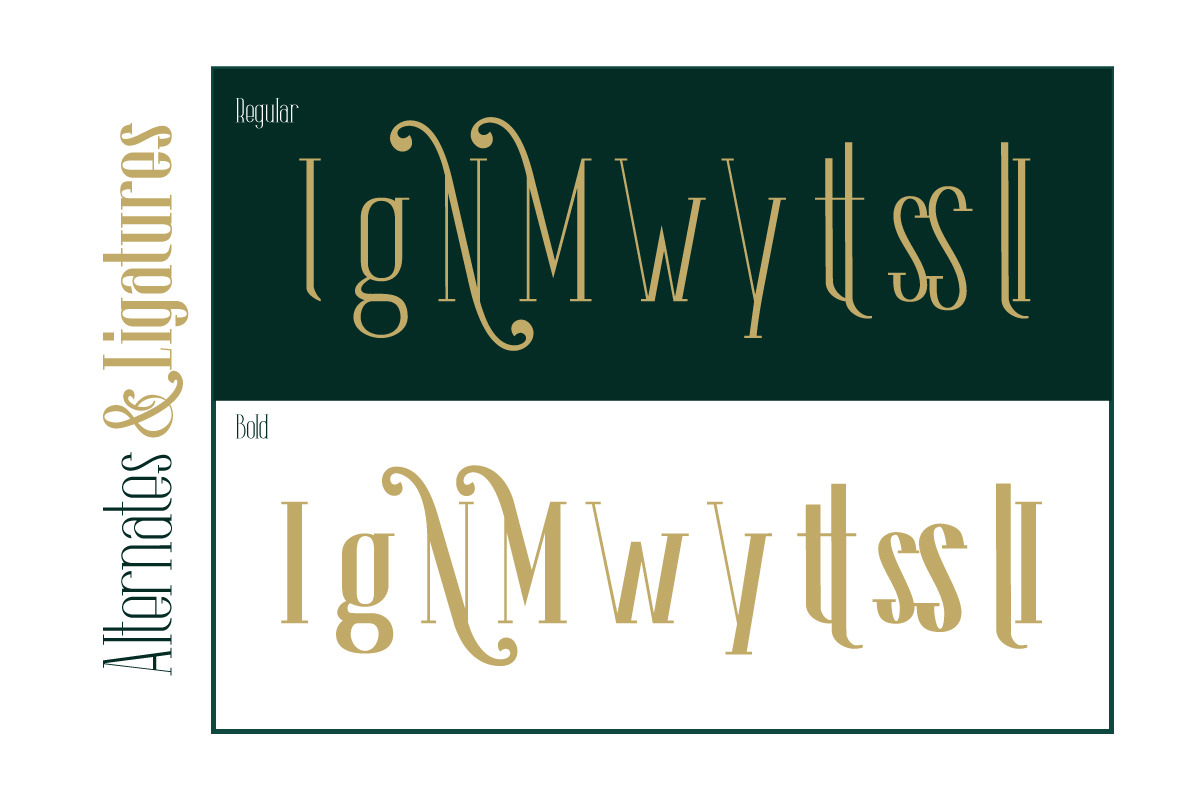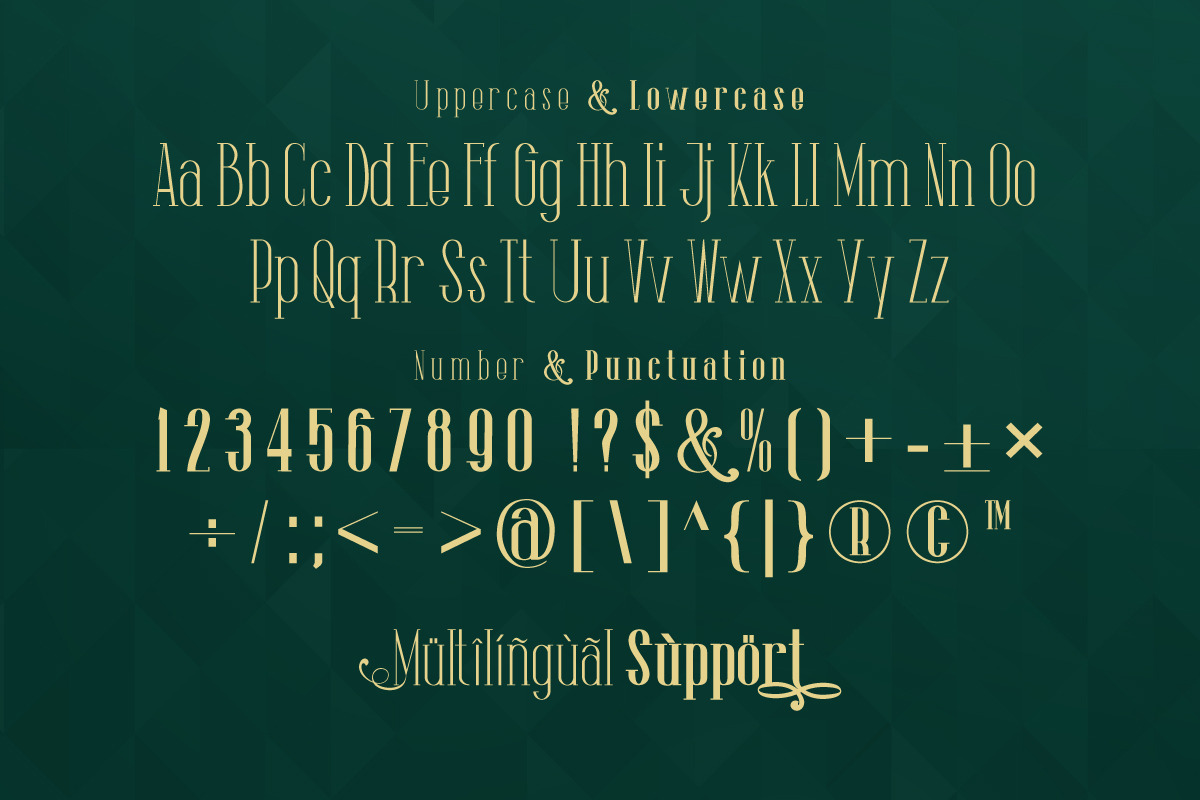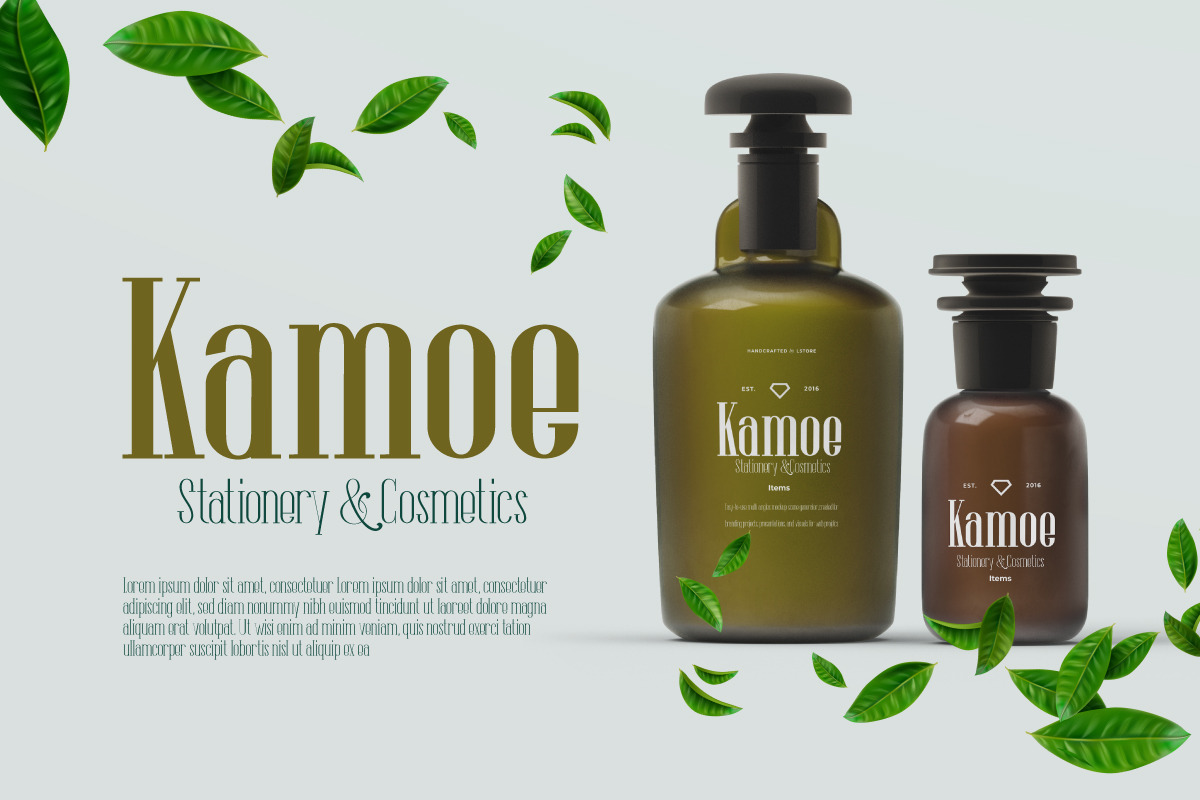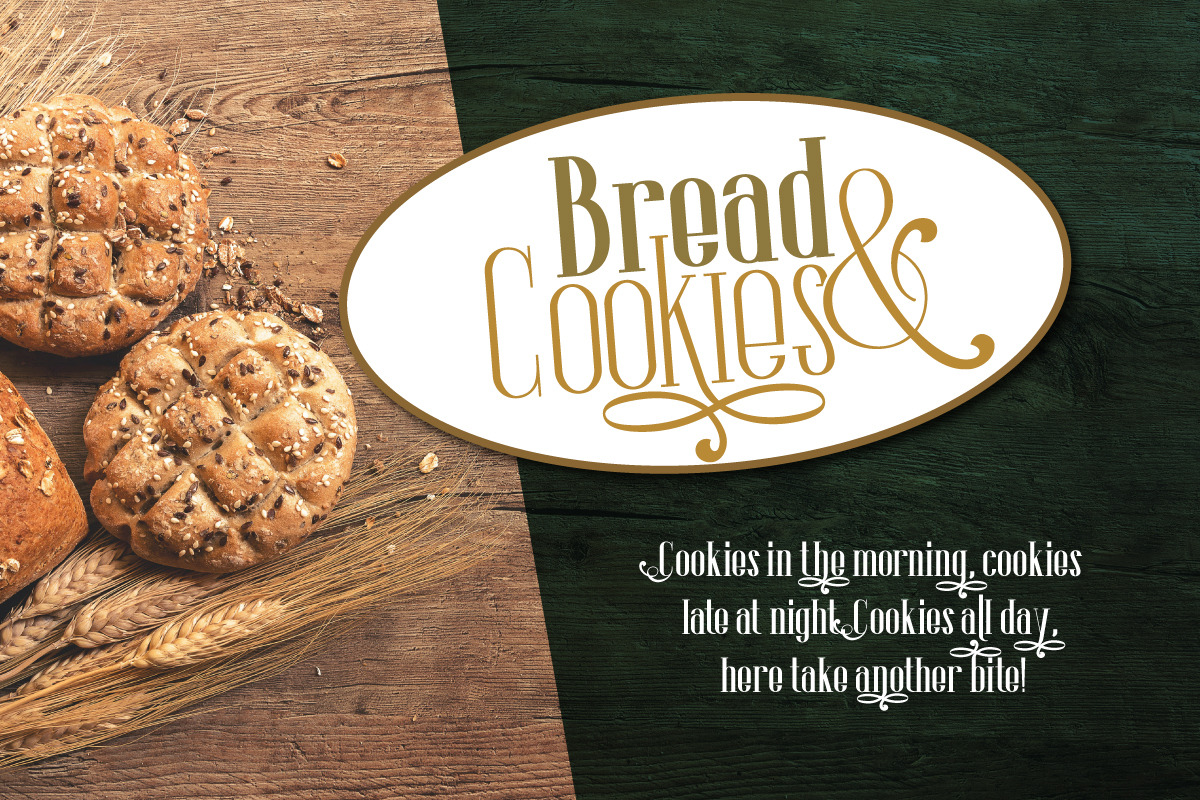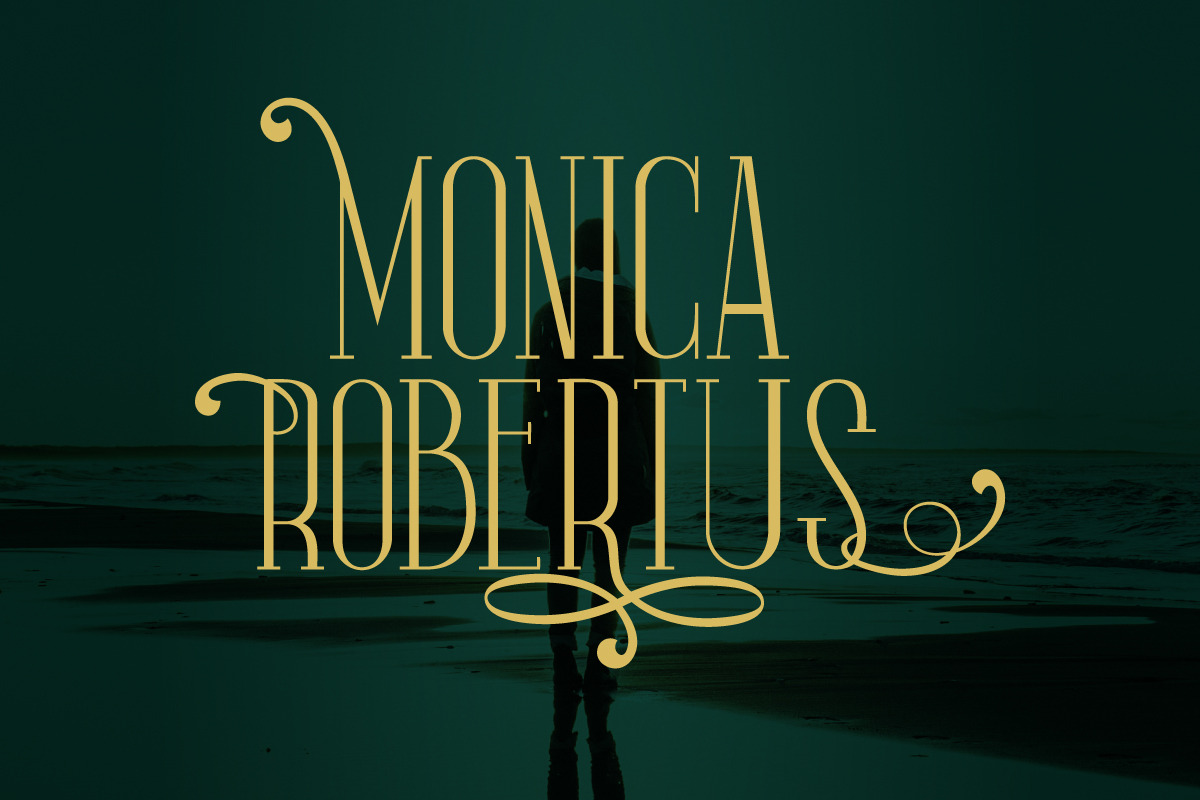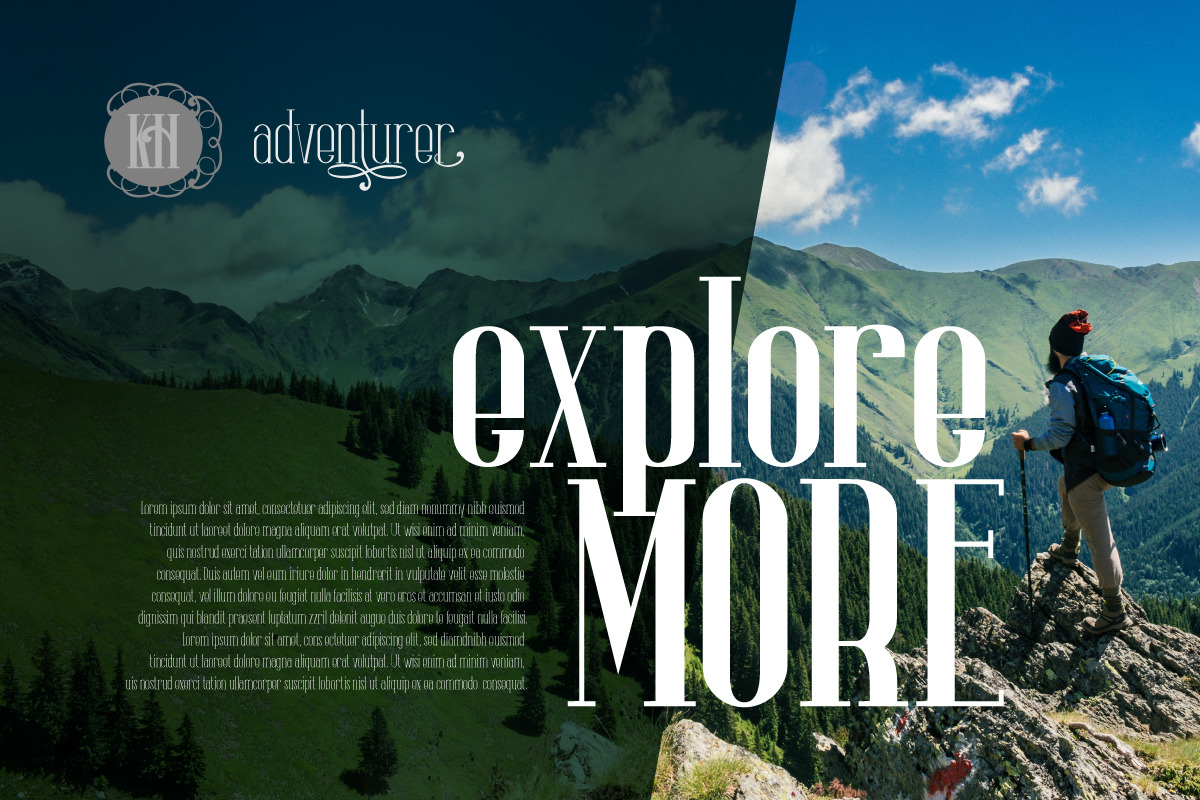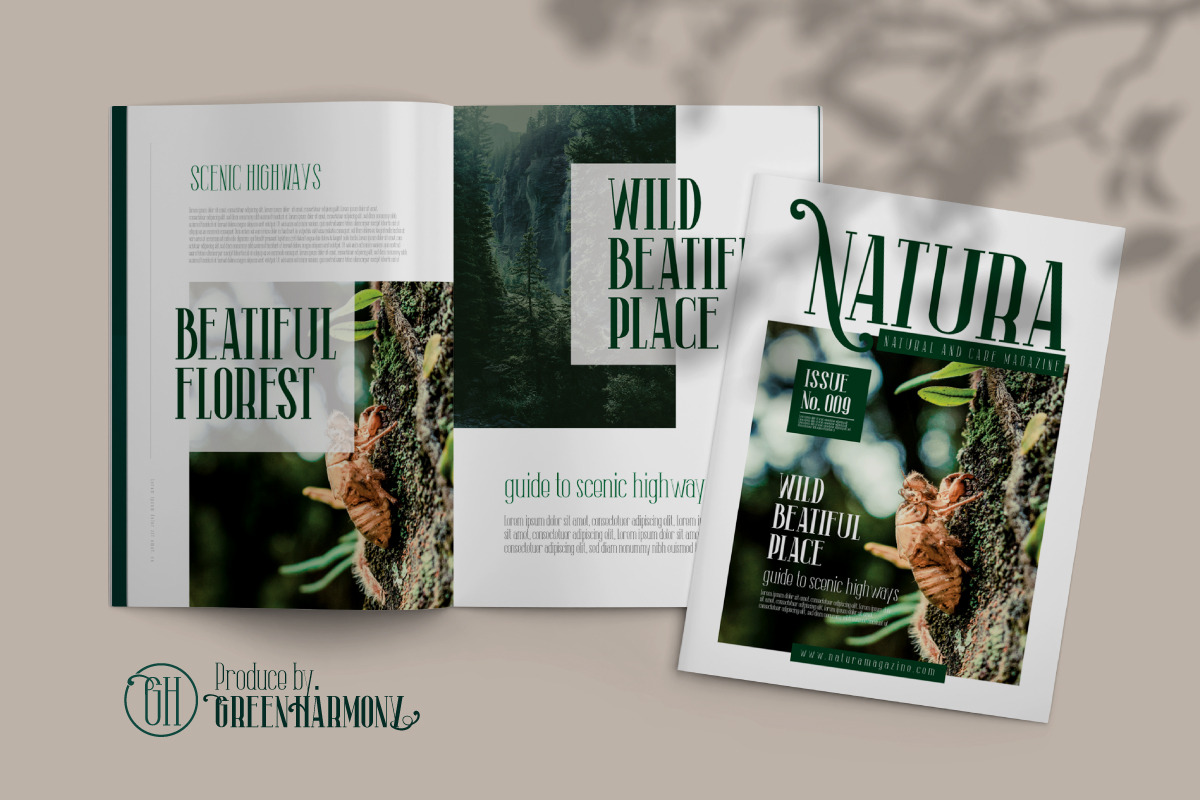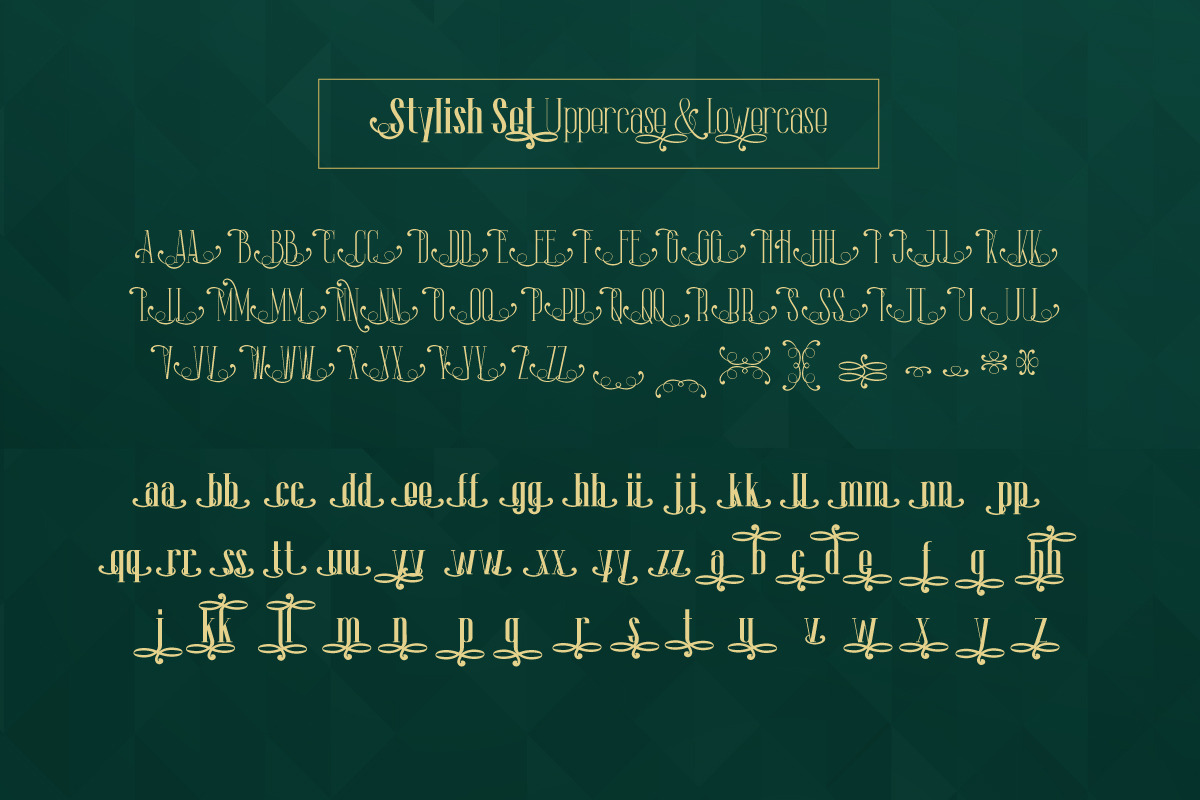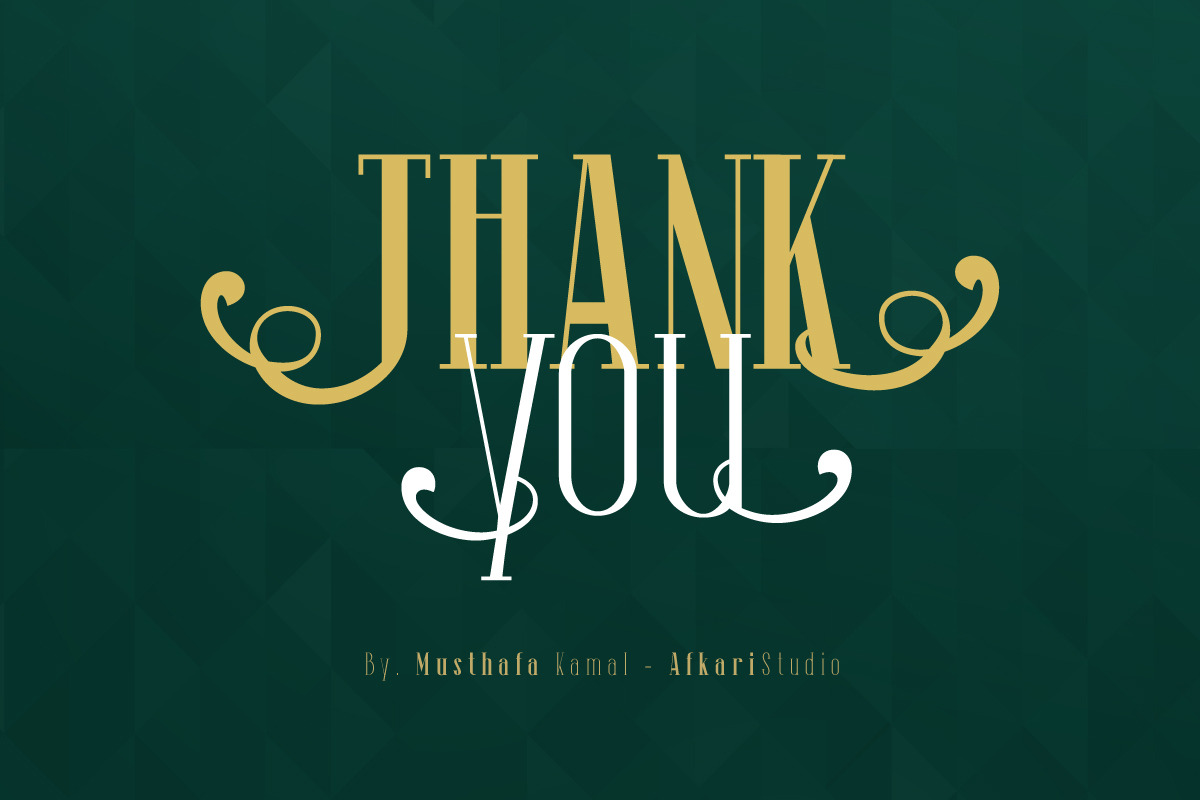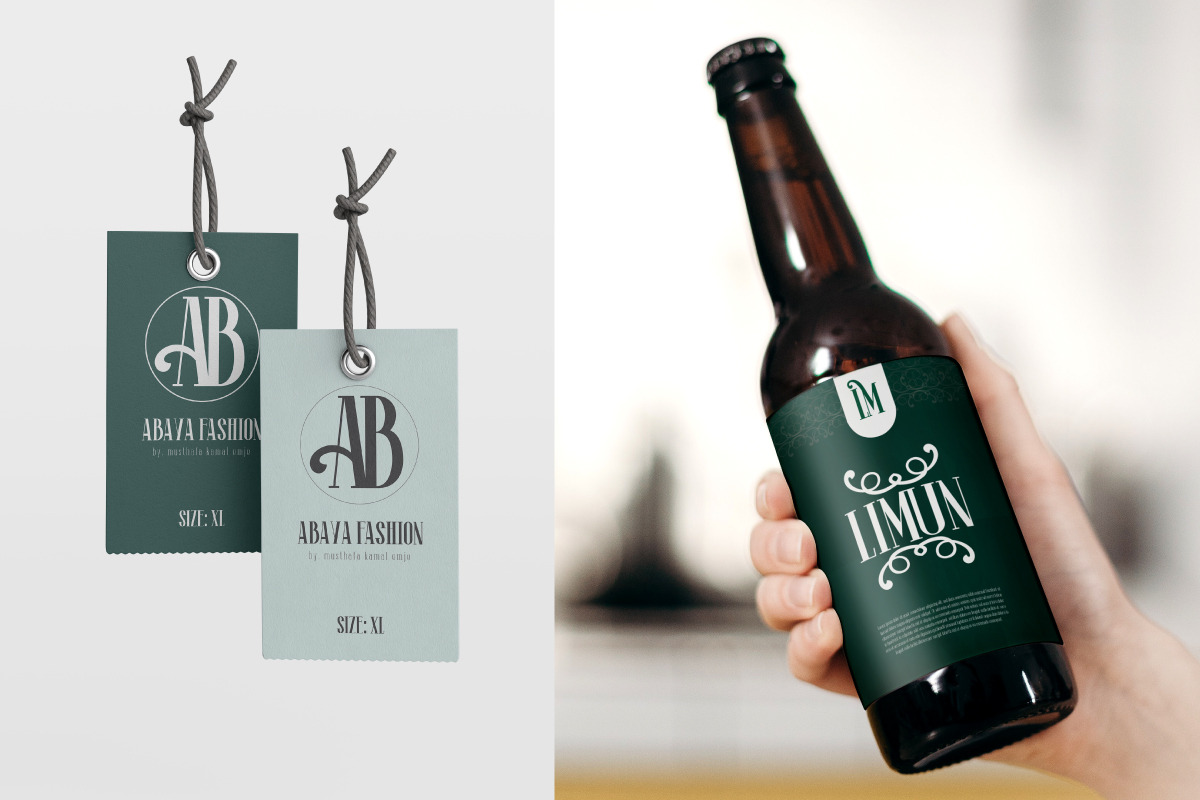
The Lingke - Modern Serif Font
The Lingke is a Stylish Modern Serif Font create wiht many stylish alternates and ligatures. The Lingke Stylish Modern Serif Font Perfect for multi-purpose serif font that will fit perfectly into any project such as logo, headline, magazine cover, poster, branding, posters, monogram logo, flyers, outdoor advertising, fashion labels, stationery, business cards, and much more.
You can also use alternates and ligatures of this stylish modern font for variety and this will add more charm to your project and emphasize your personality.
- Uppercase, Lowercase, Number, and Punctuation
- Special alternates and ligatures
- Special Stylish Set for Uppercase & Lowercase
- Mültîlíñgúãl Sùppört for; ä ö ü Ä Ö Ü ß ¿ ¡